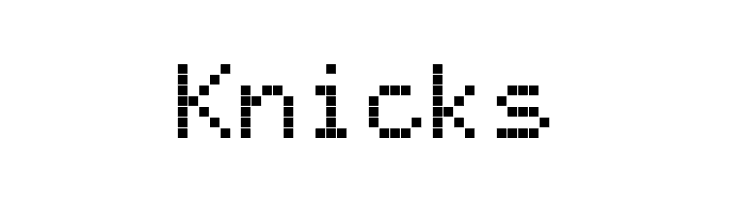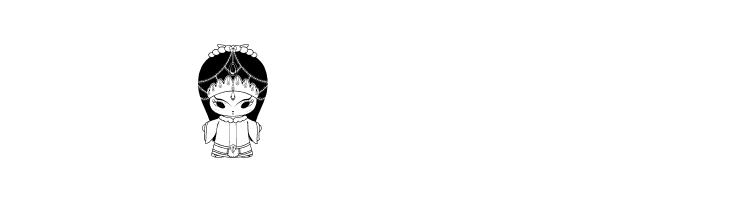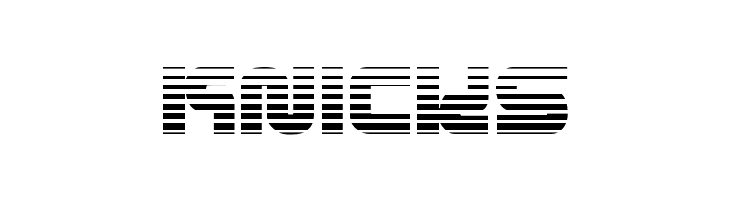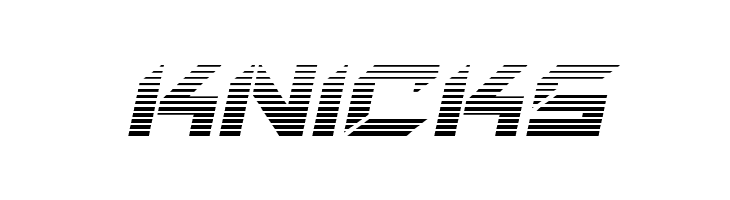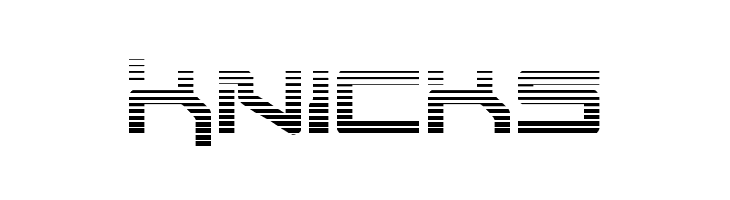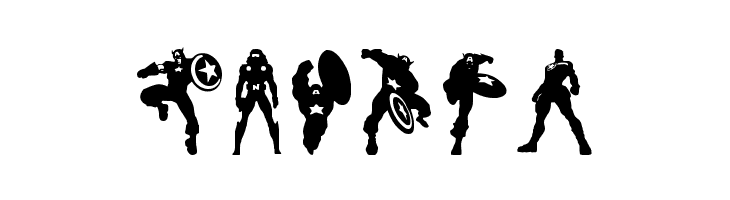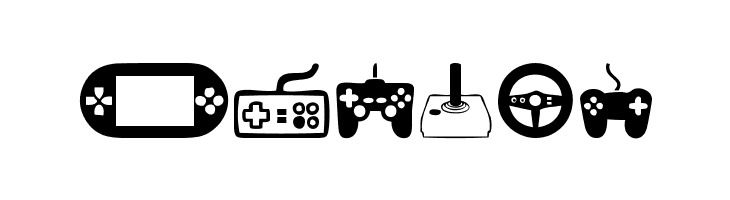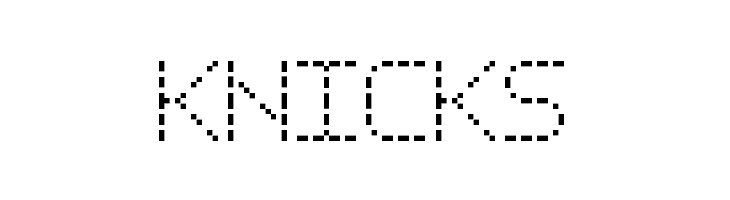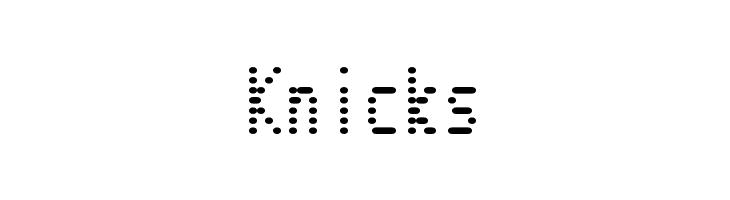
A pixelated, grid-based font inspired by digital displays.
Cartoonish, character-based decorative font with a playful, cute aesthetic.
A futuristic, line-based decorative font with a gradient effect.
A futuristic italic font with a gradient line effect, conveying speed and modernity.
A futuristic font with a gradient line pattern, perfect for tech and digital designs.
Silhouette-based decorative font with superhero themes.
Icon-based font featuring video game devices and symbols.
A pixelated, dot-based font with a retro digital aesthetic.
A dot-based font with a modern, digital aesthetic.